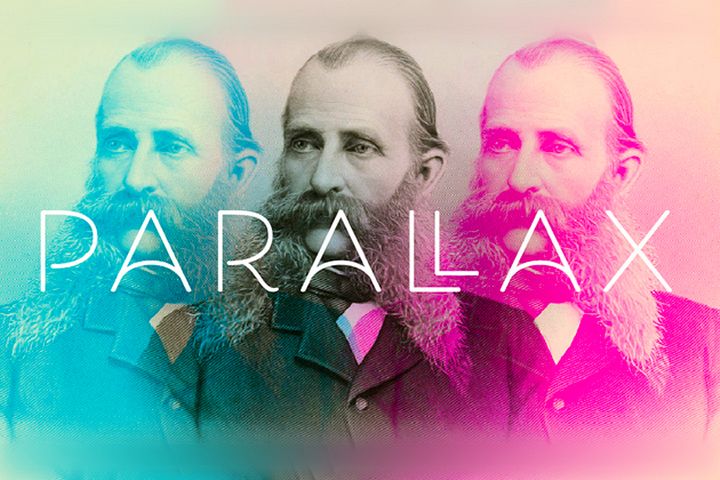
A simple sans that likes to get swashy. It’s an all-capitals face with
corresponding small capitals scaled to about 85% of the original letters
— just enough differentiation to be distinctive in the display settings
for which it’s designed. Beloved Sans includes over 800 swash and
alternate forms, making it incredibly useful and versatile for wordmarks
and distinctive headlines. The titling variant adds a hint of the Art
Deco style, while the swashed capitals add calligraphic flair. Includes
lining and old-style numerals